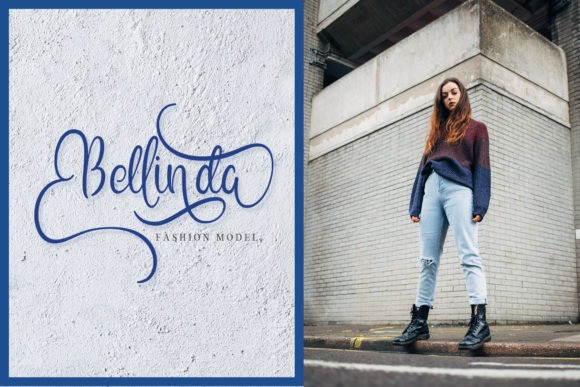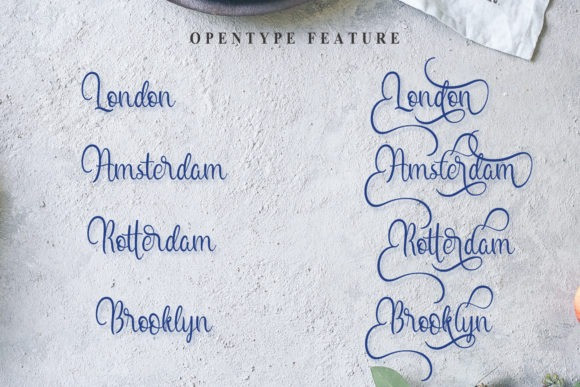
Shafeer Calligraphy Font
The Shafeer is an amazing font duo. It comes with an elegant and striking style which is perfect to make any design stand out!
Introducing Shafeer the shine script Font Duo.
Shafeer was built with OpenType features. It has an alternate upper and lowercase character set, Swashes, titling alternate, numbers, punctuation, ligatures and it also supports multilingual.
It can be used for branding, photography, invitations, watermarks, advertisements, product designs, labels, product packaging, and much more!